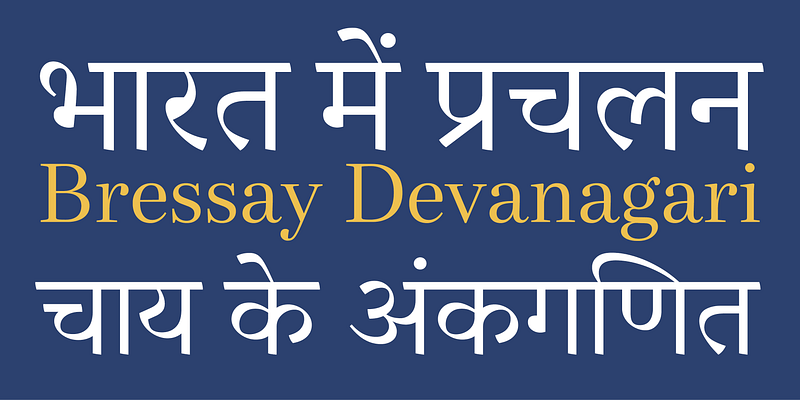
Bressay Devanagari Font Free Download is a modern and elegant typeface designed specifically for the Devanagari script, used for languages such as Hindi, Marathi, Sanskrit, and others. The font combines traditional forms with a clean, contemporary style, making it ideal for a variety of design projects, including editorial work, books, websites, and branding.
With its refined and balanced design, Bressay Devanagari ensures excellent readability and legibility, whether used for long passages of text or for headlines and titles. The font supports a wide range of Devanagari characters and comes with a complete set of punctuation marks and symbols, making it a versatile choice for bilingual and multilingual designs.